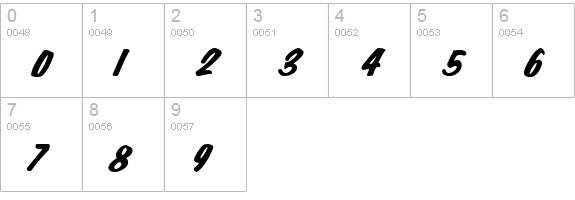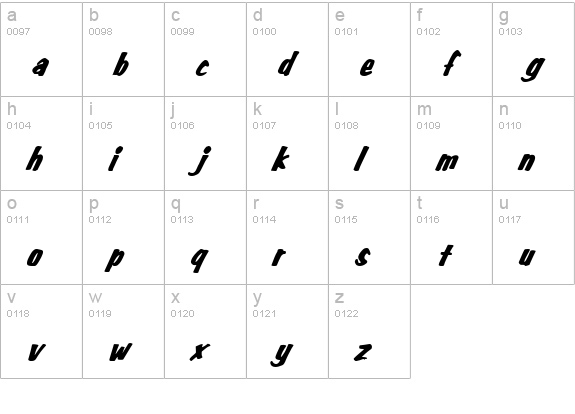
JungleItalic Font Details
Introducing JungleItalic font, a bold and adventurous typeface inspired by the lush foliage and vibrant colors of the jungle. Its slanted and dynamic letterforms evoke a sense of movement and energy, making it perfect for projects that require a touch of wildness and excitement. This unique font is not only visually striking but also versatile, suitable for a wide range of design applications including branding, posters, packaging, and more. Whether you're looking to add a hint of exotic flair to your designs or make a bold statement, JungleItalic font is sure to make an impact. Best of all, JungleItalic font is completely free to download at FontsMarket.com, so you can unleash your creativity without breaking the bank. Don't miss out on this opportunity to add a touch of jungle magic to your next project with JungleItalic font. Download it today and let your designs come alive with the spirit of the wild!